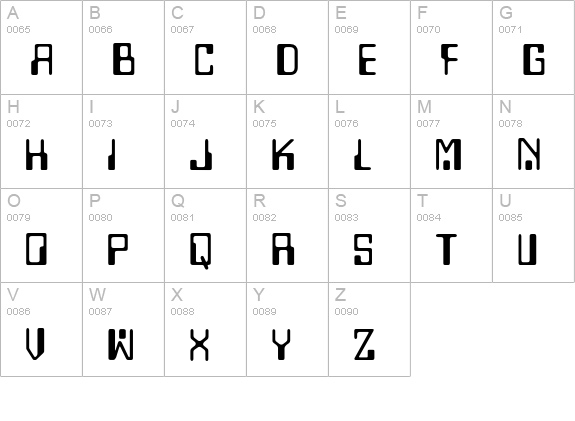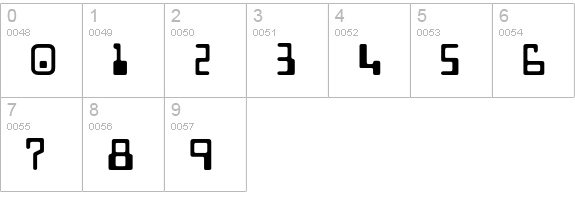
Commander Font Details
Commander font is a bold and powerful typeface that exudes authority and confidence. With its strong, angular letterforms and commanding presence, Commander font is perfect for headlines, logos, and branding projects that require a bold statement. This versatile font can be used in a variety of design applications, from posters to packaging to websites. Best of all, Commander font is available for free download at FontsMarket.com, making it easily accessible for designers looking to add a touch of boldness to their projects without breaking the bank. Download Commander font today and make a bold statement with your designs!